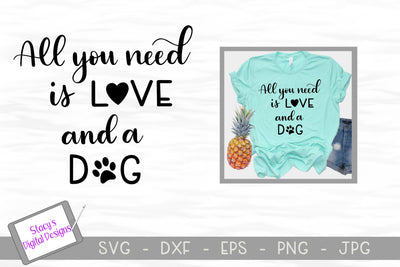
Dog SVG - All you need is love and a dog
Use this handlettered 'All you need is love and a dog' SVG with your Cricut or Silhouette (or other cutting machine) to create a t-shirt, mug, or other doggy cut file project.